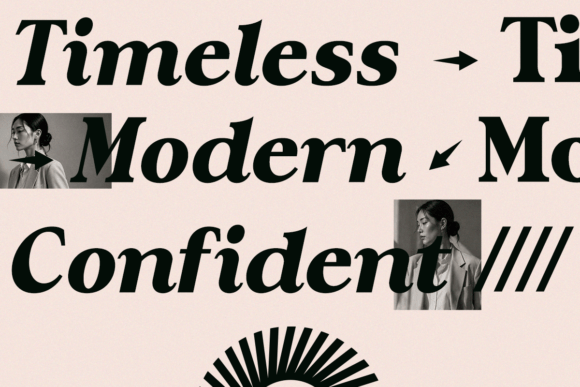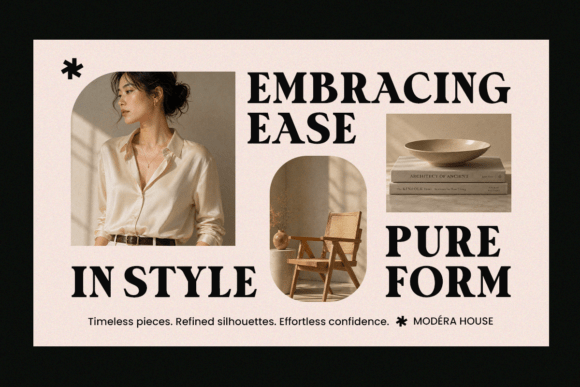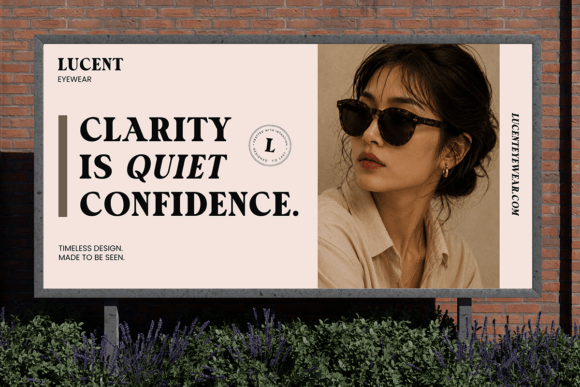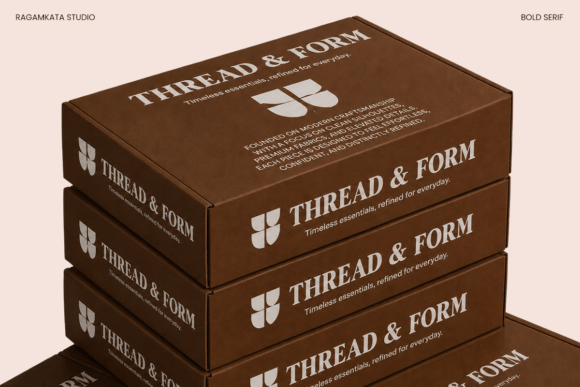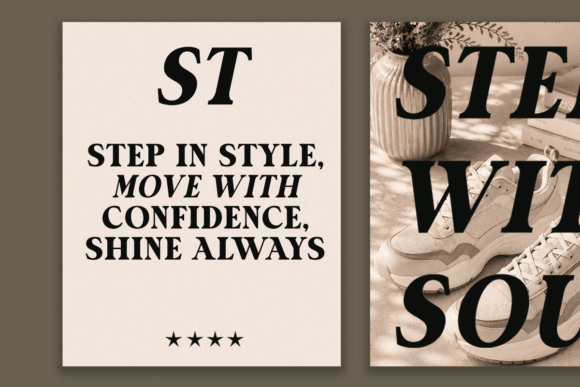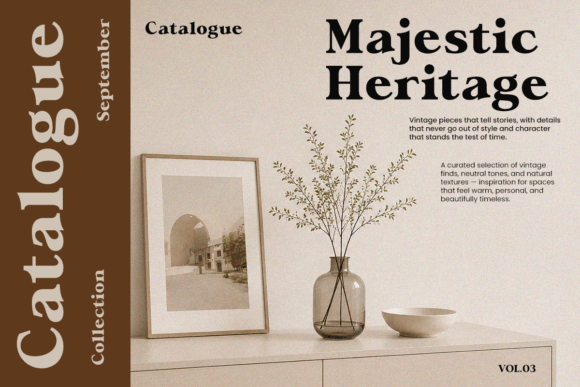
Introduction to Ramile Font
Remember the moment when you’re browsing through design inspiration boards, and you come across a stunning luxury brand logo or a high-end magazine cover that instantly grabs your attention? That’s exactly what the Ramile Font is designed to do – make your creative projects stand out with elegance and sophistication.
As a designer, you’re always on the lookout for the perfect typeface to elevate your work. And that’s where Ramile Font comes in – a bold modern serif display font that exudes confidence and timeless sophistication. Whether you’re working on a luxury branding project, fashion campaign, or a sophisticated social media visual, this font is the perfect addition to your design resource toolkit. With its classic serif elegance and modern display styling, Ramile Font is the ultimate choice for designers who want to deliver high-quality, premium designs with ease.
Key Features of Ramile Font
- High-quality design resource for creative projects, perfect for designers and artists.
- Unique, hand-drawn design with a transparent background, allowing for effortless customization and composition.
- Supports a wide range of languages, making it an ideal choice for global design projects and creative collaborations.
Honest Review: Ramile Font
As a designer, I’m always on the lookout for high-quality fonts that can elevate my creative projects. I recently had the chance to try out the Ramile Font, and here’s my honest review.
- ✨ Unique and elegant design that adds a touch of sophistication to any project
- ✨ Clear and readable even at small font sizes
- ✨ Comes with a transparent background, making it easy to customize
One of the things I appreciate about the Ramile Font is its versatility. It’s perfect for designing anything from wedding invitations to corporate brochures. The font is also free to download, making it an excellent resource for designers on a budget.
- ⚠️ Limited font styles available (only a few weights and italics)
- ⚠️ Not as comprehensive as some other font collections
Overall, I’m impressed with the Ramile Font. While it may not offer a wide range of styles, its unique design and high quality make it a valuable addition to any design resource. If you’re looking for a elegant font for your next creative project, I’d definitely recommend giving it a try.
Tips for Getting the Most Out of Ramile Font
Use the Ramile Font with a transparent background to create a modern and sleek design. Experiment with different font sizes and styles to add visual interest to your creative project.
The Ramile Font is ideal for use in brochures, flyers, and social media graphics. Its high-quality design makes it perfect for creating eye-catching and professional-looking materials.